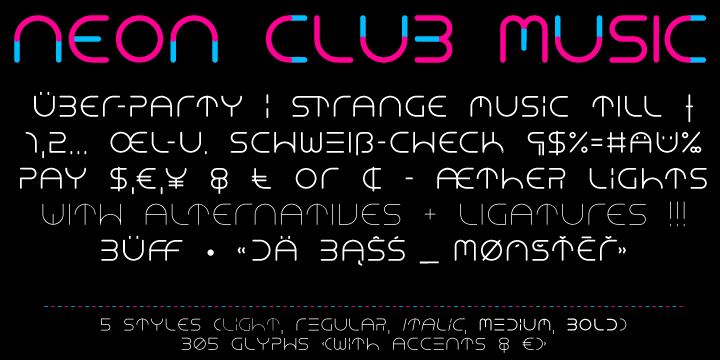
Font name: | Neon Club Music |
Author: | Manuel Viergutz | Typo Graphic Design |
Note by Manuel Viergutz | Typo Graphic Design | |
Headline Font / Display Font / Sci-Fi Font / Flyer Font "NEON CLUB MUSIC" with 5 stlyes (light, regular, italic, medium, bold) & 305 glyphs inkl. accents & € INFO If you want to use this font for commercial projects, please contact me: manuel.viergutz[at]gmx.de or donate an amount greater-than-or-equal EUR 19 / $ 24 (for commercial licence). I also appreciate it if you send me links /images of your (non)-commercial work featuring this font. |